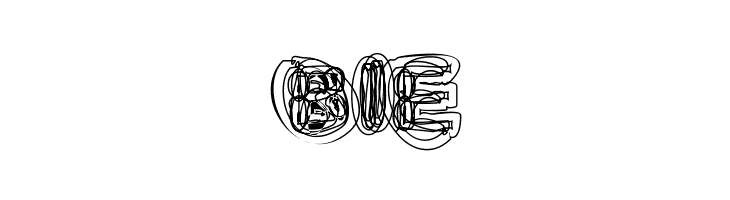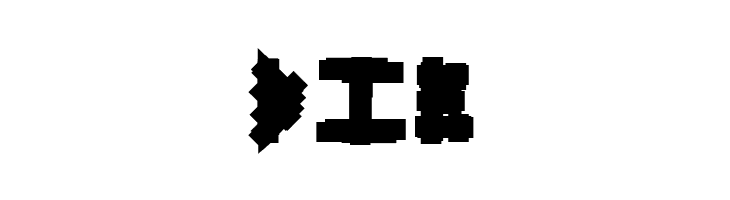
( Fonts by Typography in Decay )
A modern, geometric font with rounded edges and consistent stroke width.
( Fonts by Typography in Decay )
A bold, modern font with geometric shapes and a dynamic slant.
( Fonts by Typography in Decay )
A bold, abstract font with geometric, futuristic design elements.
( Fonts by Typography in Decay )
An abstract, decorative design with crescent and circular shapes, resembling a secret code.
( Fonts by Typography in Decay )
A sketch-like, hand-drawn font with overlapping lines and a playful style.
( Fonts by Typography in Decay )
A futuristic, segmented font with a digital and tech-inspired design.
( Fonts by Typography in Decay )
A bold, edgy font with thick strokes and sharp angles, ideal for impactful designs.